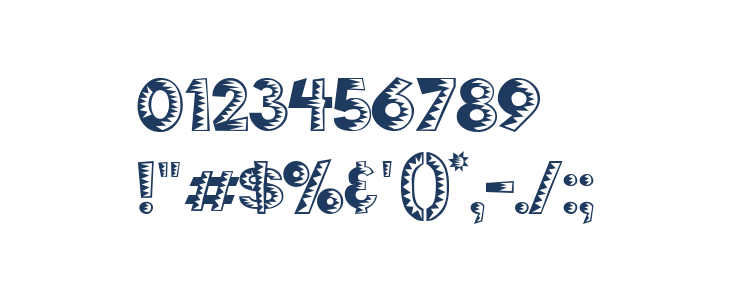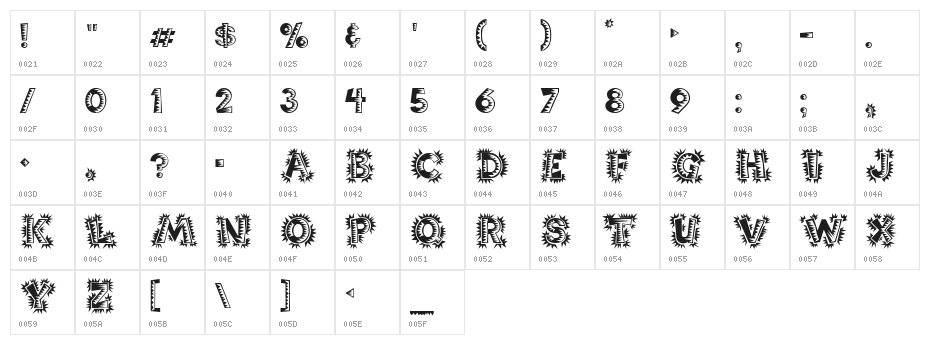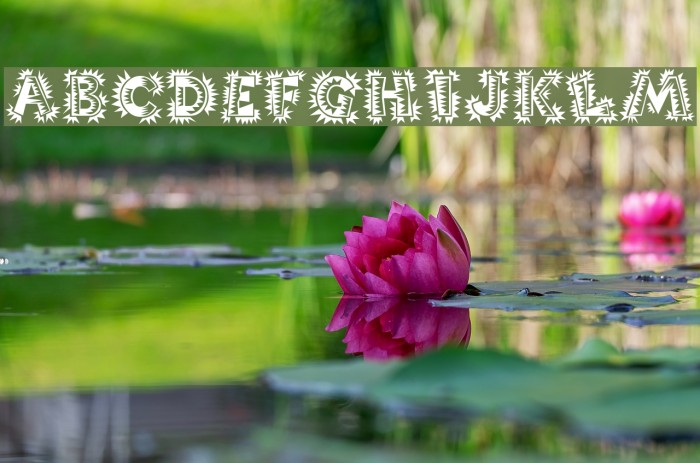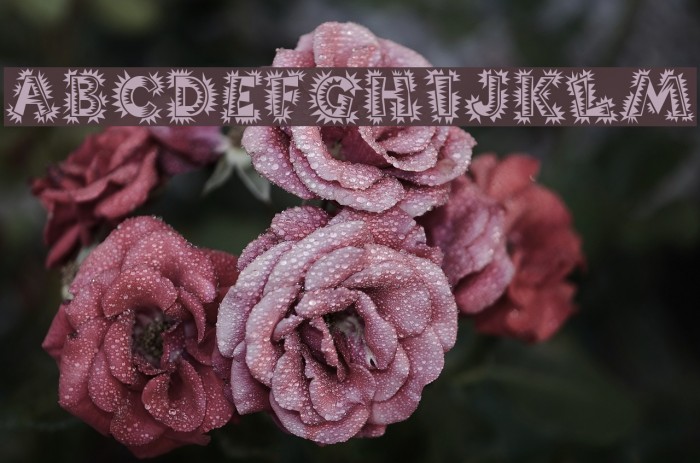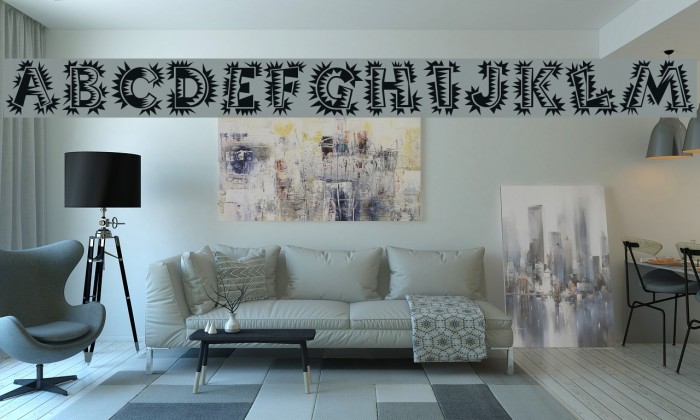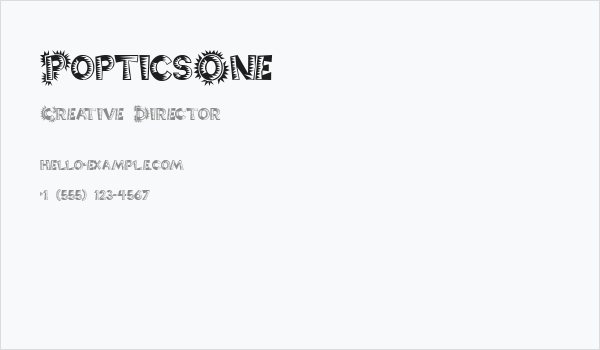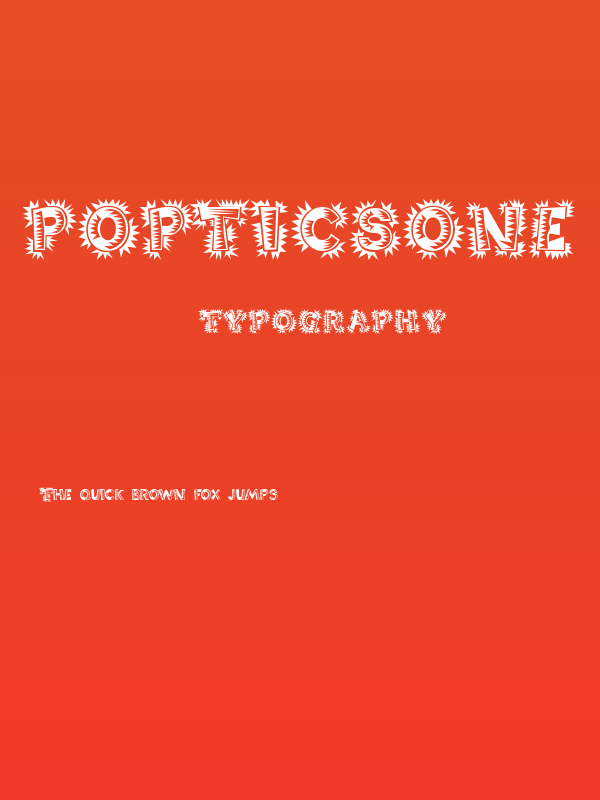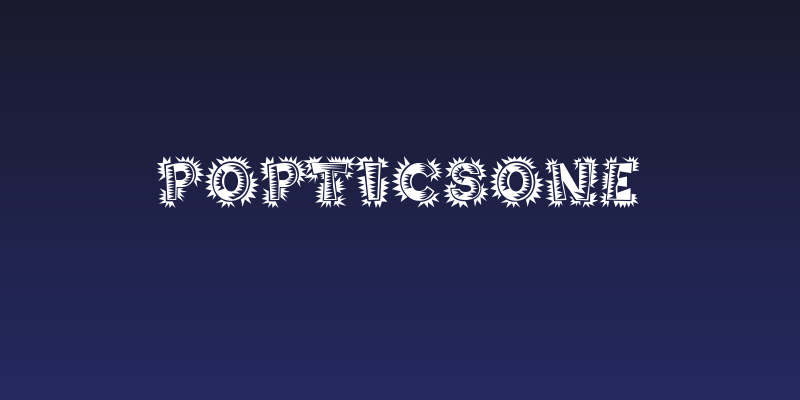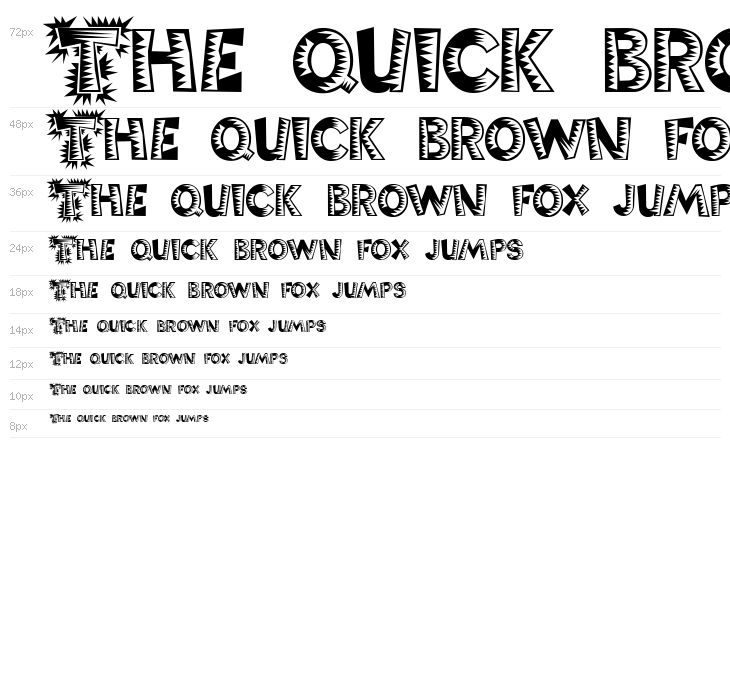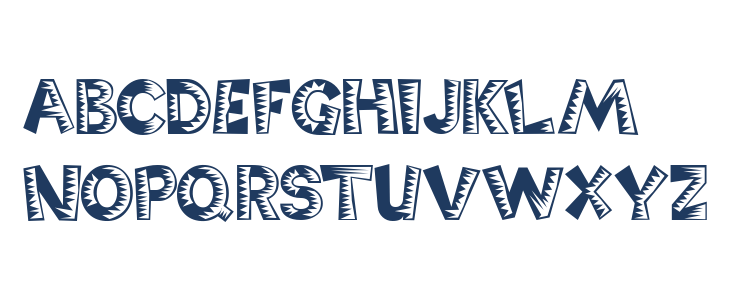
PopticsOne Font
PopticsOne Description
This font features a bold and dynamic style with a playful, energetic vibe. The characters are adorned with jagged, zigzag patterns that give them a striking, eye-catching appearance. The uppercase letters are particularly bold, with thick strokes and sharp angles, while the lowercase letters maintain the same energetic design. The numerals and special characters are equally bold and feature the same distinctive zigzag detailing. This font is perfect for projects that require a fun, lively, and attention-grabbing typeface.